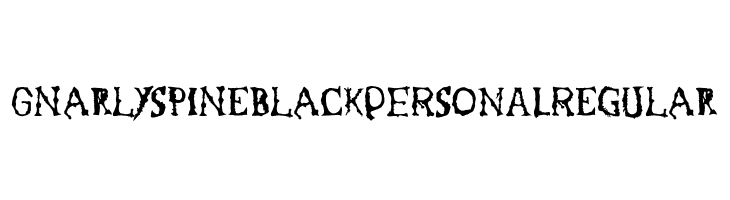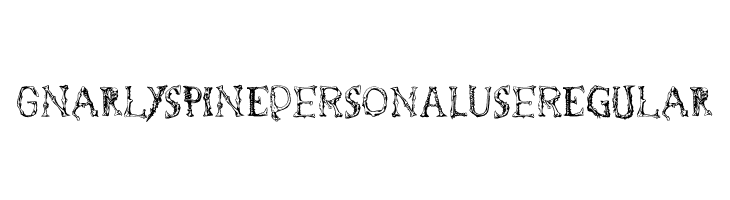
An edgy, bone-like font with intricate, jagged details.
A spooky, bone-like font with jagged edges and a dripping effect.
A decorative font with a skeletal, bone-like design perfect for spooky themes.
A bold, jagged font with a distressed, thorn-like appearance.
A bold, decorative font with a twisted, organic design and spine-like details.
A bold, angular font with sharp, splintered edges for a striking appearance.